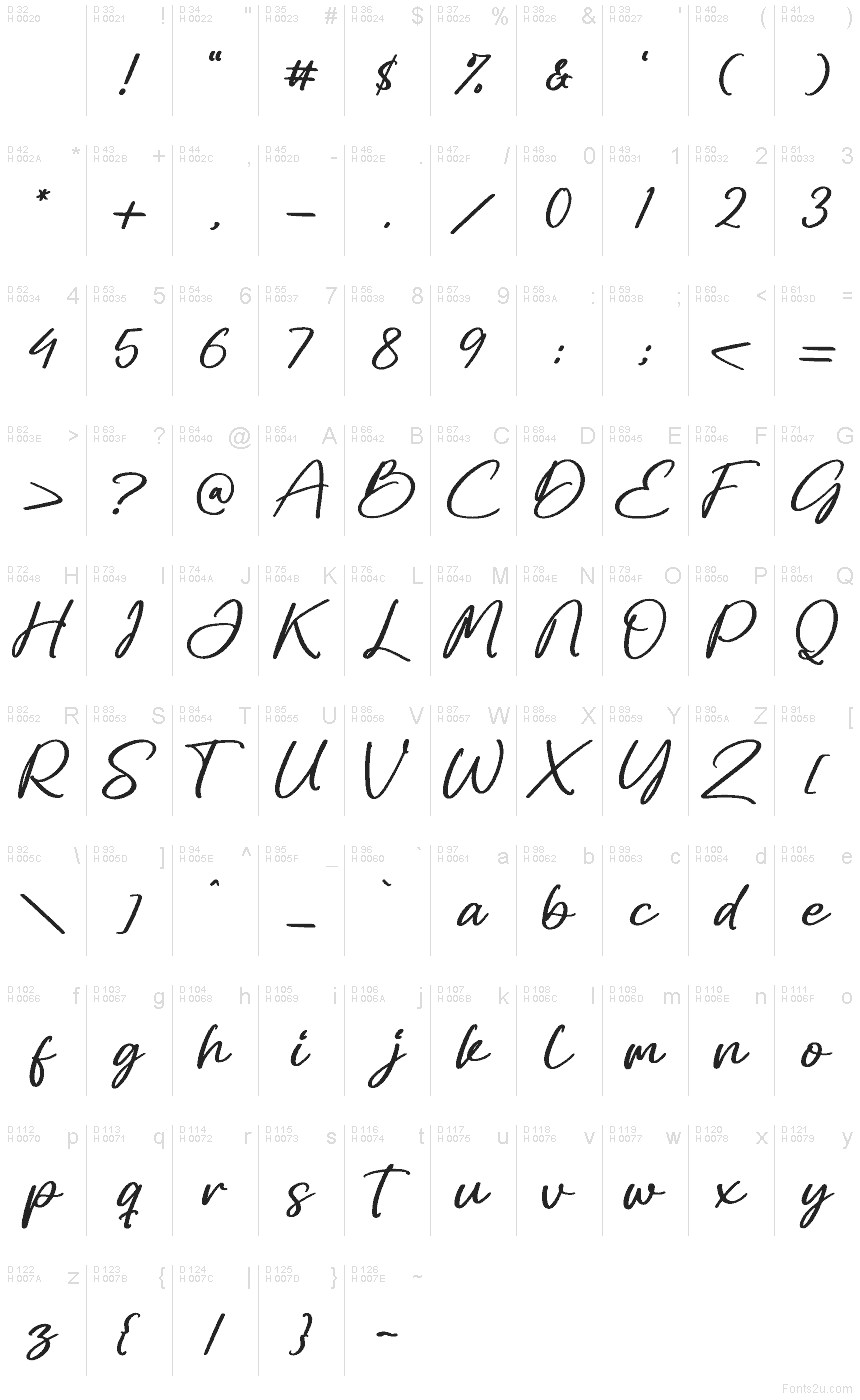
Jacielle Olievera
Jacielle Olievera font by Integritype Studio is a free handwritten font that beautifully blends elegance with an expressive script style. Its smooth flow and organic curves offer a personal feel perfect for modern applications. The font combines delicate yet confident strokes, which give it character and enhance its overall appearance to match any design.
The beautiful style of Jacielle Olievera will fit branding and invitation cards along with websites, blogs, t-shirts, mugs, notebooks covers, badges or logos. It sweeps across large surfaces either digitally or printed with inspiring beauty that does not go unnoticed. If the project needs something beautiful and pretty fonts can absolutely carry their weight in aesthetic appeal then this option should be considered as one more potential resource to achieve satisfactory results within diverse scenarios concerned about visual communications aspects at some level!